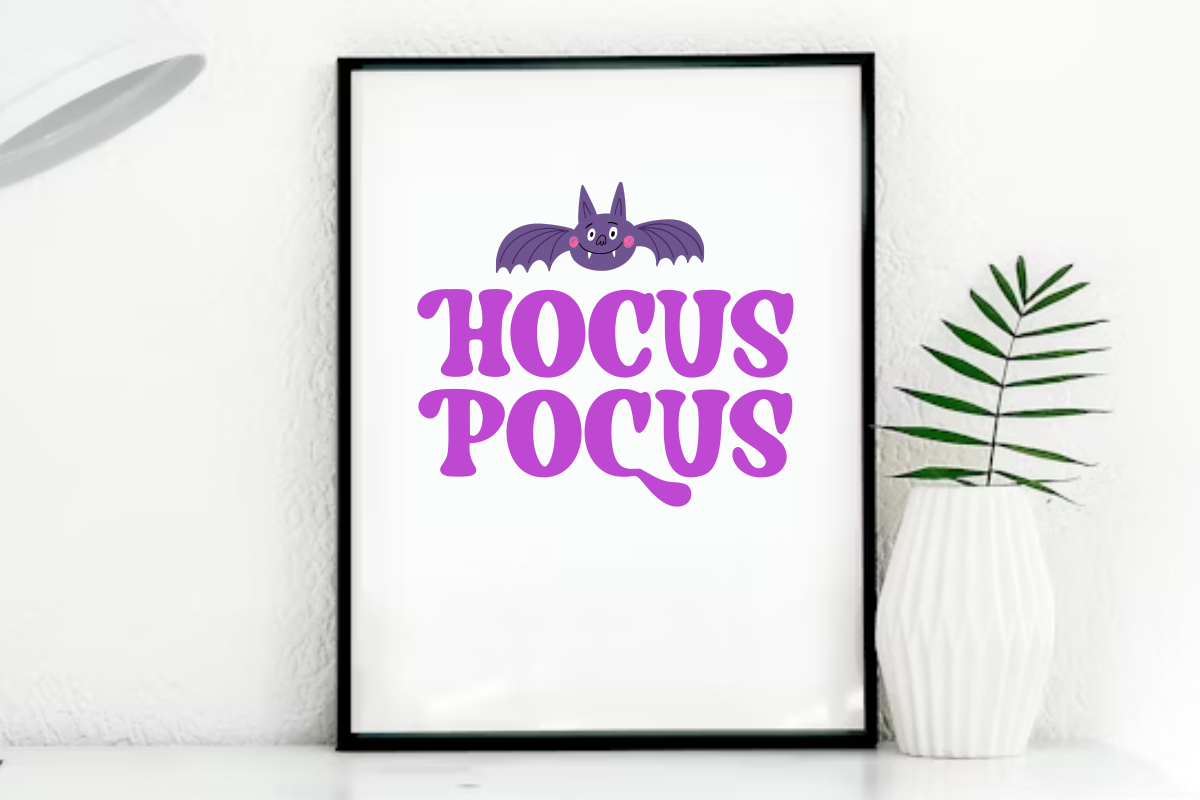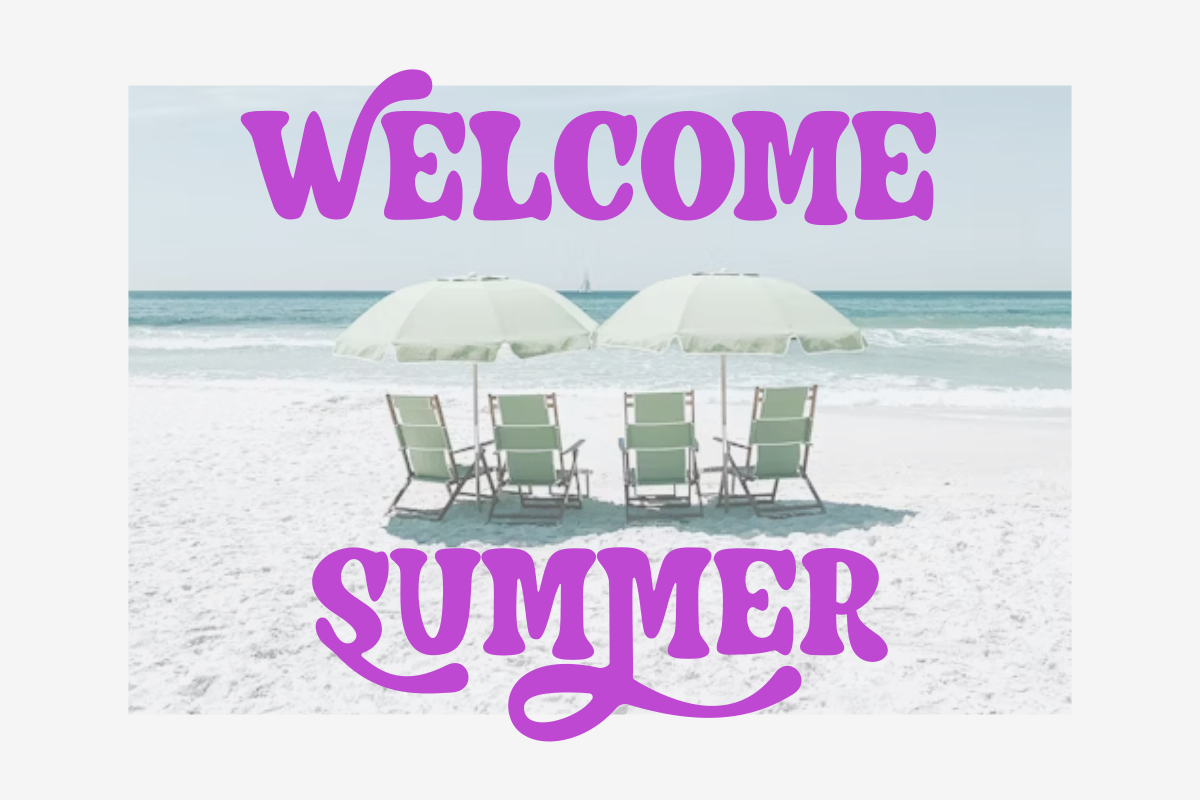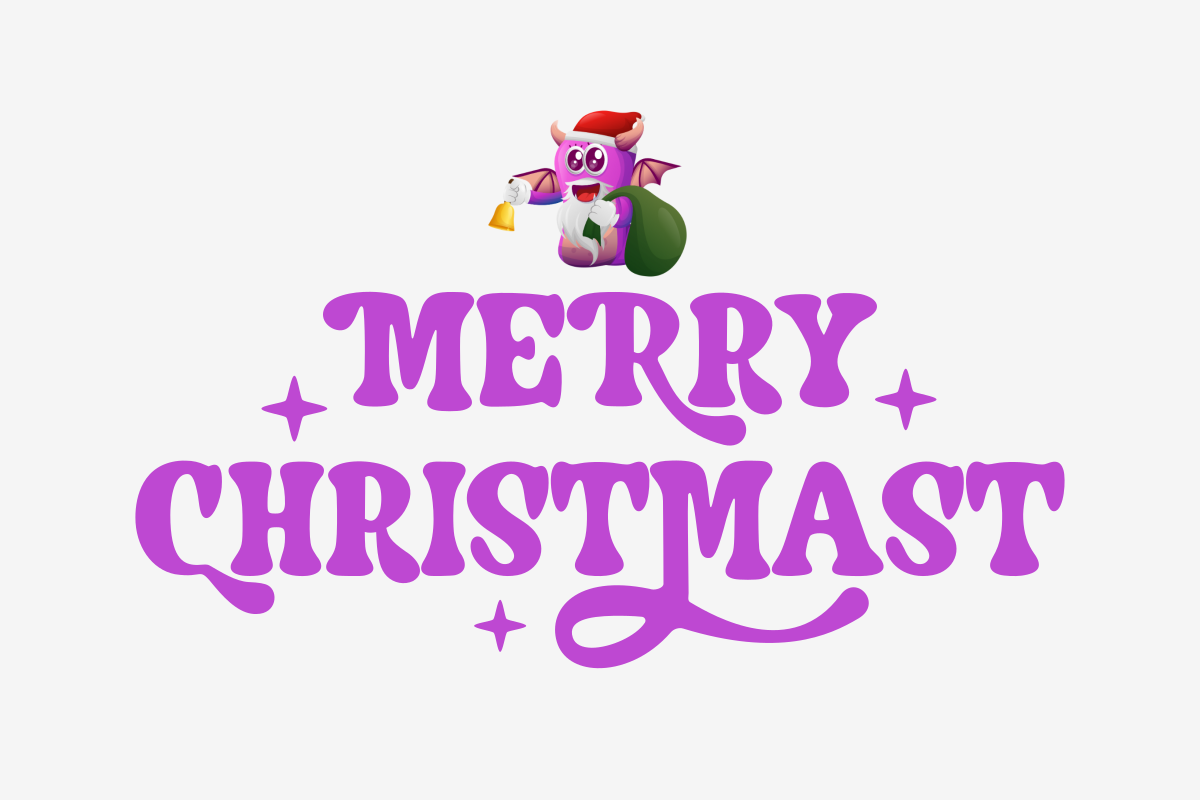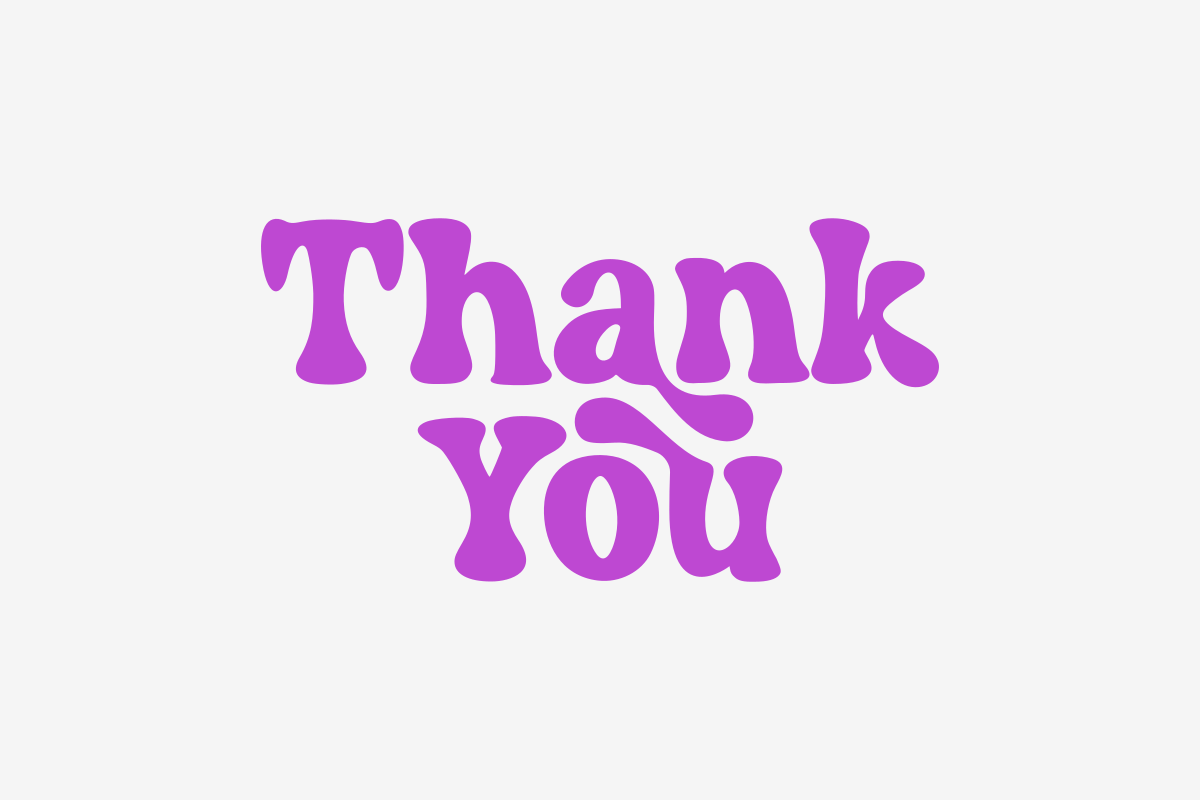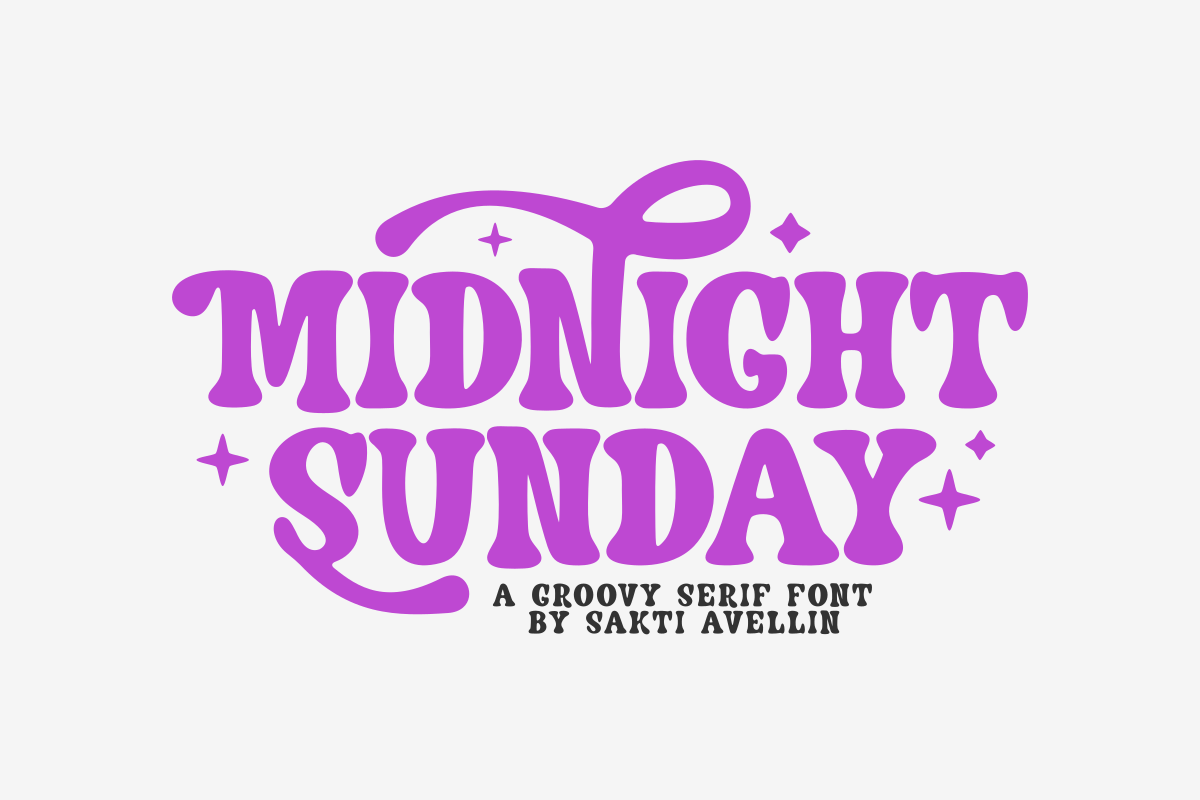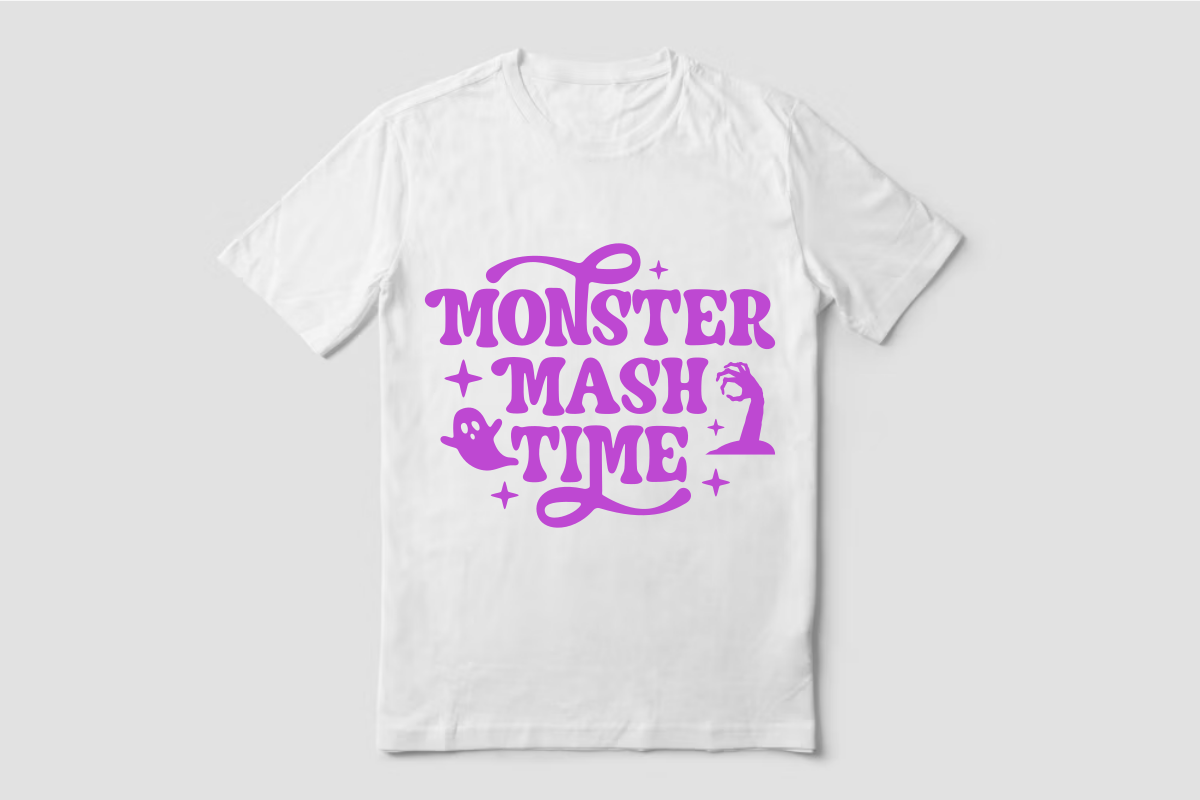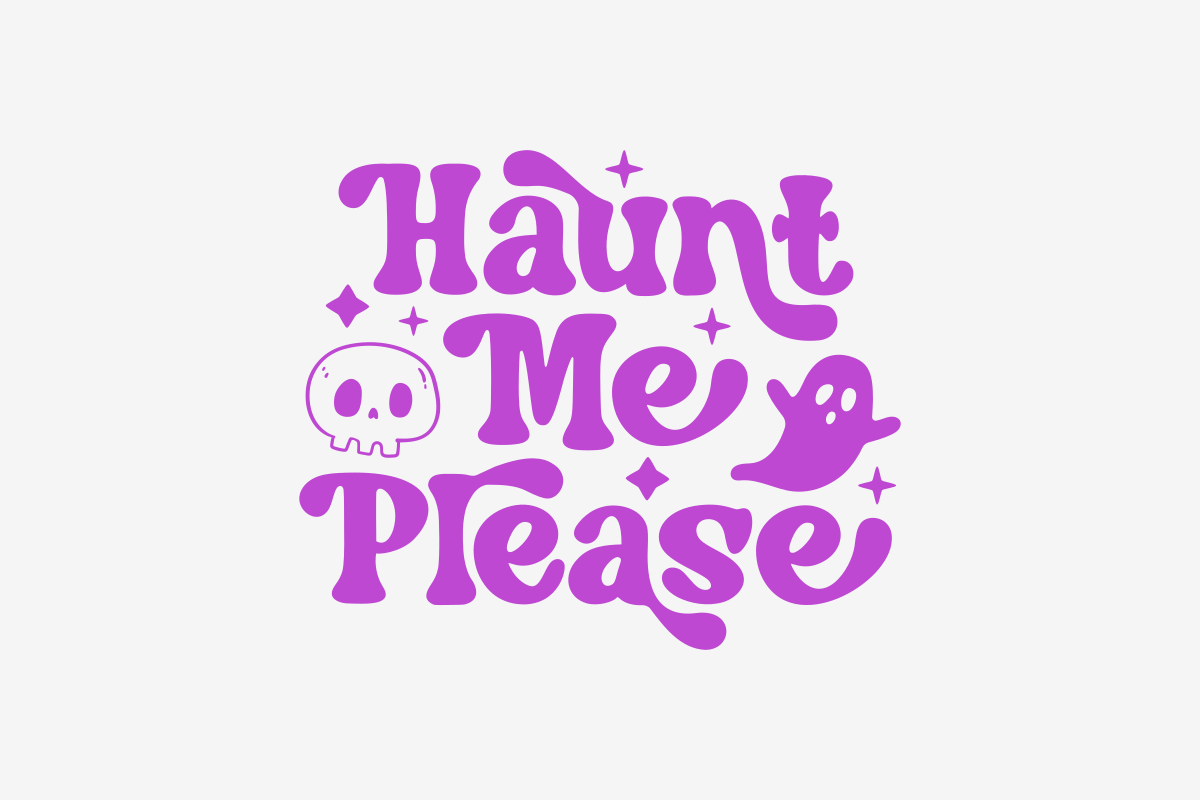
Midnight Sunday - Groovy Serif Font
Midnight Sunday is a mesmerizing and truly groovy serif font that channels a vibrant, retro 70s aesthetic. This bold display font features exaggerated curves, striking serifs, and a playful, psychedelic vibe, making it perfect for vintage branding, fun feminine logos, retro posters, t-shirt designs, and whimsical social media graphics. Its unique, chunky form ensures it stands out as a powerful display typeface, ideal for creative projects needing a bold, nostalgic, and trendy look. Embrace the throwback era and add a touch of funk to your designs with this delightful serif font!